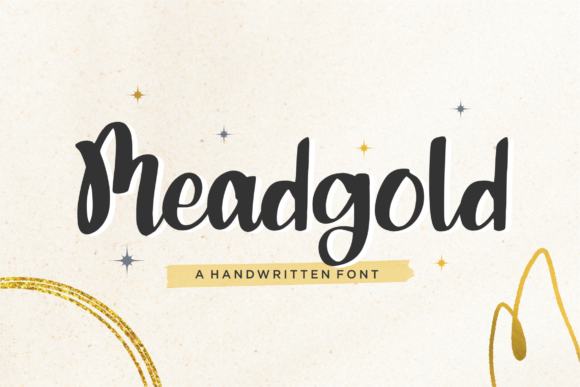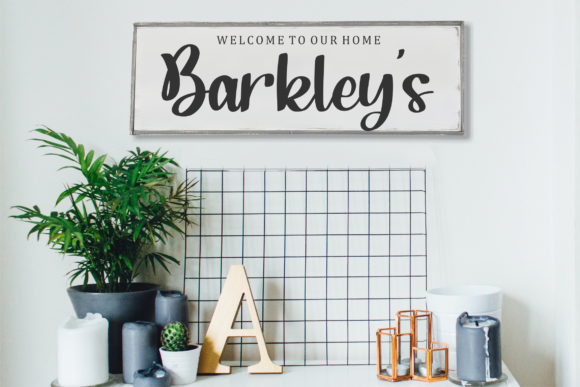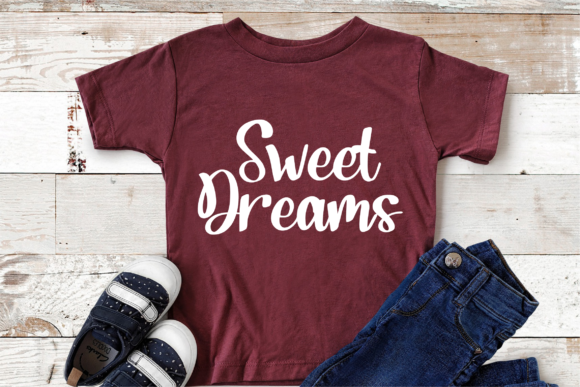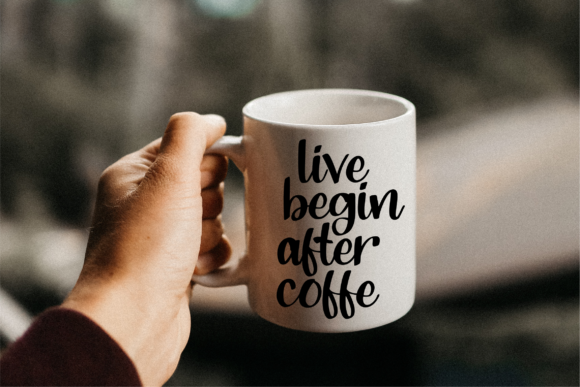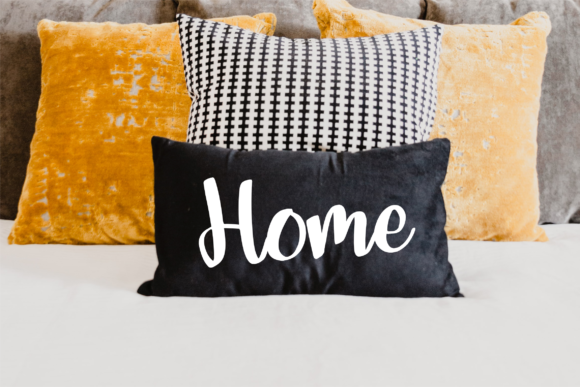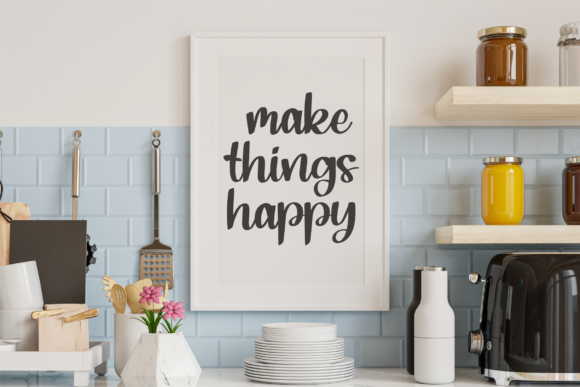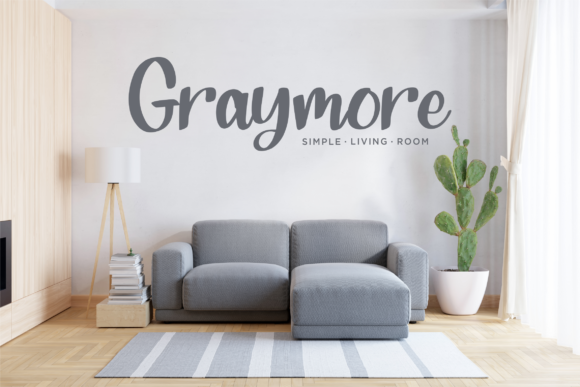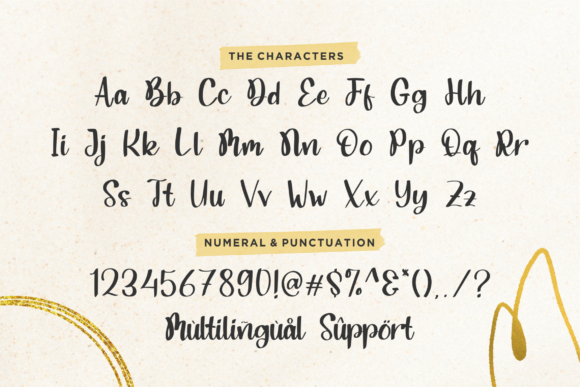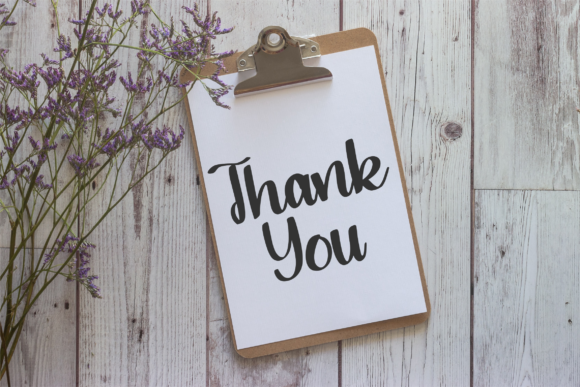
Meadgold Font
About Meadgold Font
Meadgold is a flowing handwritten font, described by an elegant touch, perfect for your favorite projects. Fall in love with its incredibly distinct and timeless style and use it to create spectacular designs!